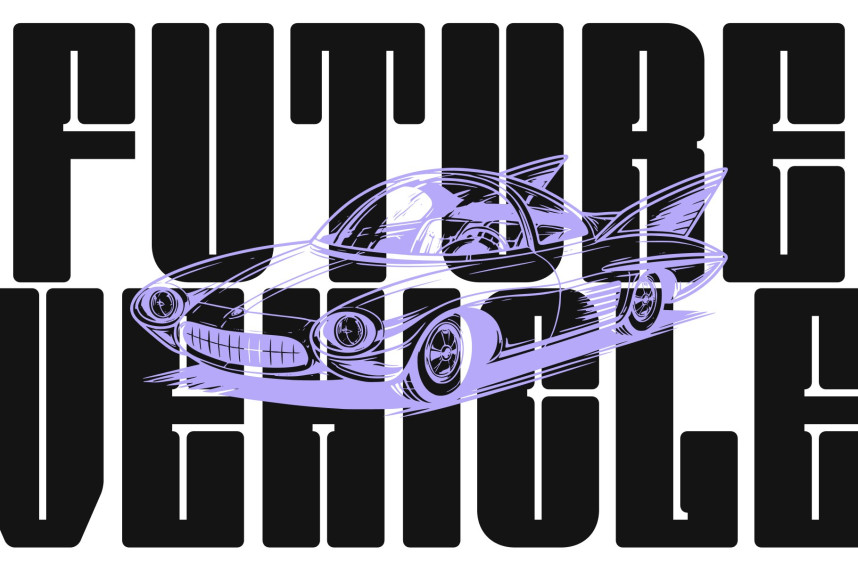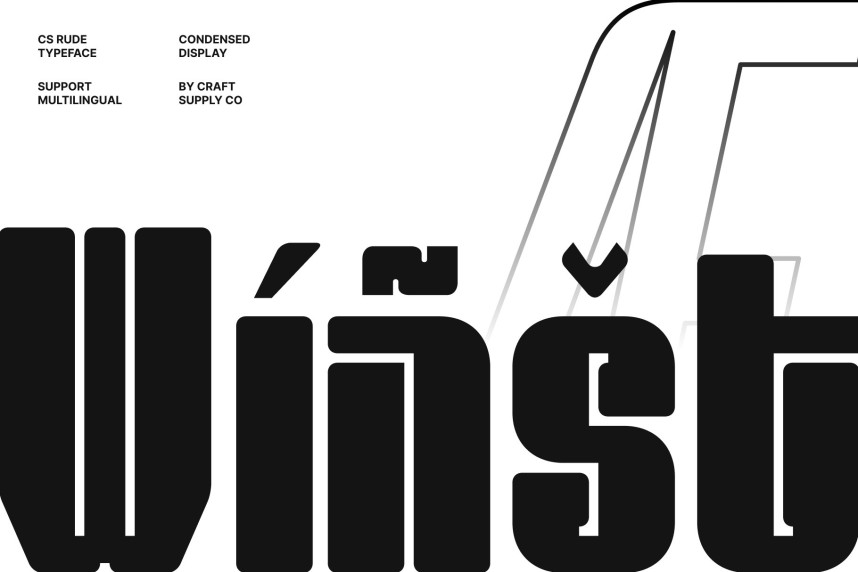
CS Rude Font
CS Rude Font – Condensed Industrial Sans Serif with Bold Authority
Condensed Sans Serif with Industrial Edge
This is a compact and modern condensed sans serif font designed to deliver a bold industrial presence. Built for strength and efficiency, this typeface combines sharp structure with contemporary energy, creating a confident voice that commands attention. Its strong personality makes it perfect for designs that need to feel powerful and modern.